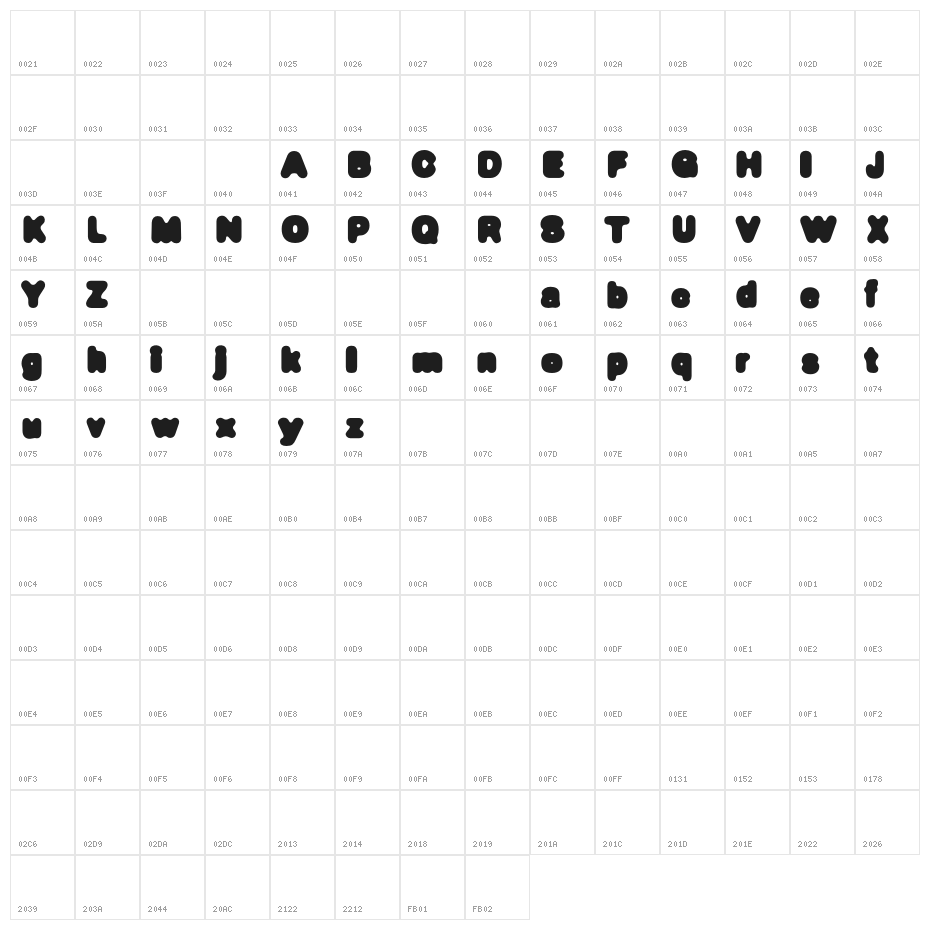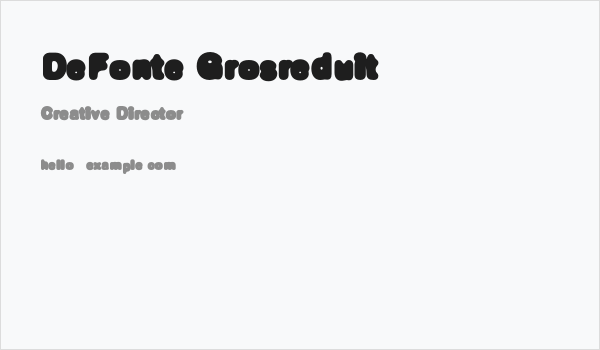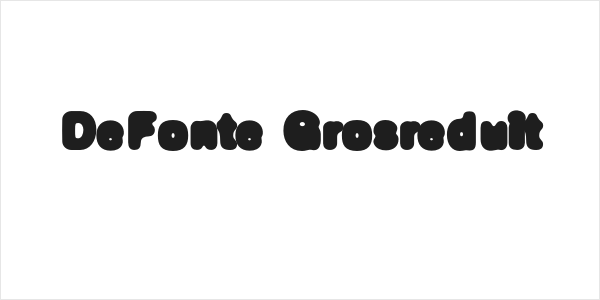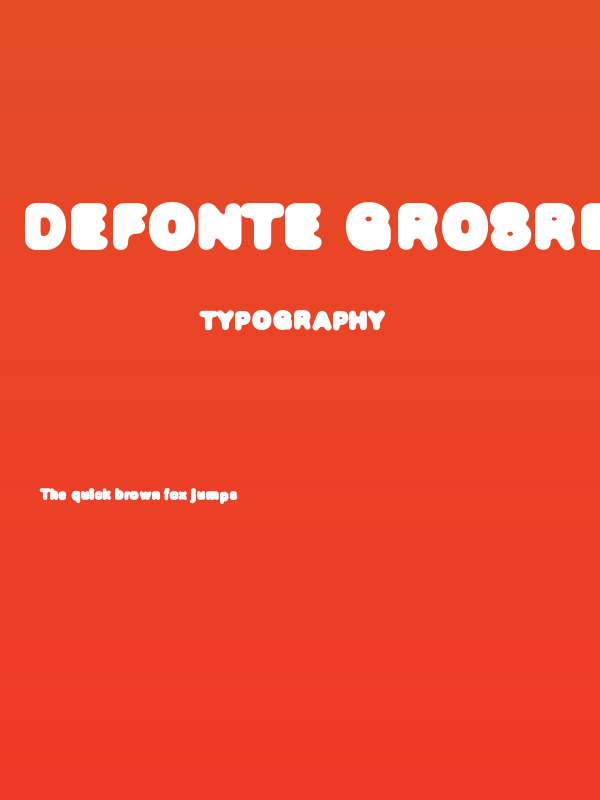
DeFonte-Grosreduit Font
DeFonte-Grosreduit Description
This font features a bold, playful style with rounded, bubble-like characters. Each letter is heavily weighted, giving it a strong presence on the page. The characters are uniformly thick, creating a cohesive and consistent look throughout. The rounded edges and lack of sharp angles contribute to a friendly and approachable aesthetic. This font is highly decorative, making it ideal for eye-catching designs. The spacing between characters is tight, enhancing the compact and dense appearance of the text. Its unique style makes it stand out, perfect for projects that require a fun and engaging visual element.
| Overall Style | Playful, Decorative |
| Proposed Projects | Ideal for children's books, playful branding, posters, and party invitations. |